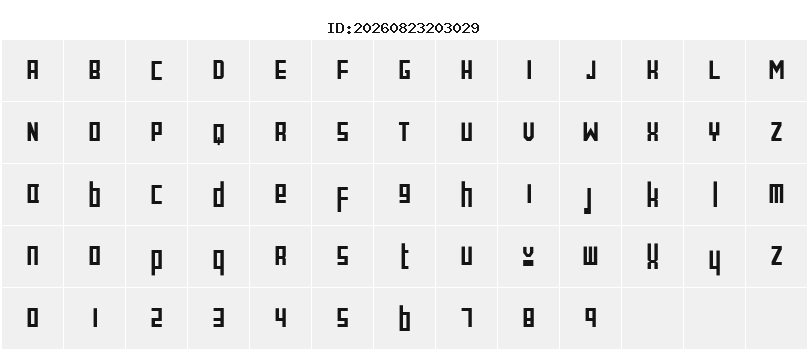
• Font Name: Satellite
• Full Font Name: Satellite-Regular
• PostScript Name: Satellite-Regular
About Satellite.ttf
Satellite.ttf is a modern, elegant sans-serif font designed for ultimate readability and visual harmony. Perfect for branding, headlines, web design, and print materials.